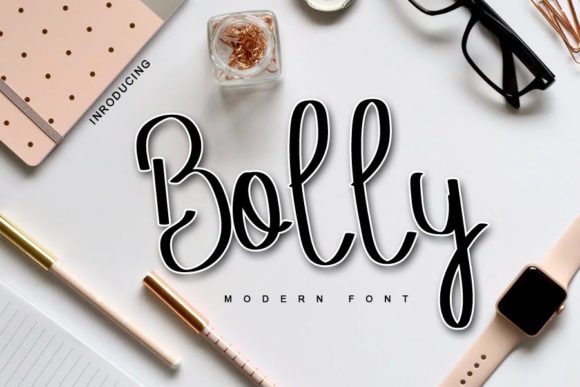
The Perfect Font for Your Next Project: Bolly Font
Do you remember that moment when you finally find the perfect font to match your design concept? The feeling of excitement and relief is unmatched, and it’s what drives designers to keep pushing the boundaries of creativity. For those who have experienced this moment, we’re excited to introduce you to the Bolly Font, a chic and refined script font that will elevate your projects to new heights.
Bolly Font is designed to exude sophistication and elegance, making it the perfect match for any project that requires a touch of refinement. Its stylish alternates and ligatures take the design process to the next level, allowing you to create unique and visually appealing designs. Whether you’re a seasoned designer or just starting out, the Bolly Font is a valuable addition to your toolkit.
Bolly Font Key Features
- Font Family: Bolly Font is a unique, hand-drawn font family designed to evoke the spirit of Indian cinema. It comes in a variety of weights and styles.
- Unique Characteristics: Bolly Font features intricate, hand-drawn details and ornate flourishes, giving it a distinctive, cinematic feel. It’s perfect for designers looking to add a touch of Indian flair to their projects.
- Language Support: The font family supports a range of languages, including English, Hindi, and other popular Indian languages, making it a great choice for multilingual designs.
I recently had the chance to try out the “Bolly Font” and I’m excited to share my honest thoughts with you.
- Unique style: The Bolly Font has a distinctive, playful style that’s sure to grab attention.
- Legibility: Despite its ornate design, the font is surprisingly easy to read, even at smaller sizes.
- Expressive: The font is perfect for conveying a sense of energy and playfulness, making it ideal for creative projects.
- Limited versatility: The Bolly Font is best suited for projects where a bold, playful style is desired.
- Lack of subtlety: The font can be overwhelming in certain contexts, making it difficult to read in large blocks of text.
- Not ideal for formal use: The Bolly Font’s playful nature makes it unsuitable for formal documents, presentations, or other professional materials.
Overall, I think the Bolly Font is a great addition to any designer’s toolkit, but it’s essential to understand its limitations and use it accordingly. When used thoughtfully, it can add a much-needed spark to your designs.
For optimal results, use the Bolly Font in conjunction with bold, colorful graphics and imagery. Experiment with different font sizes and styles to create visual interest. Avoid using the Bolly Font in small or faint text, as it may be difficult to read.
The Bolly Font is ideal for creative projects, such as:
– Social media graphics and advertisements
– Event invitations and posters
– Branding and marketing materials
– Digital and print publications